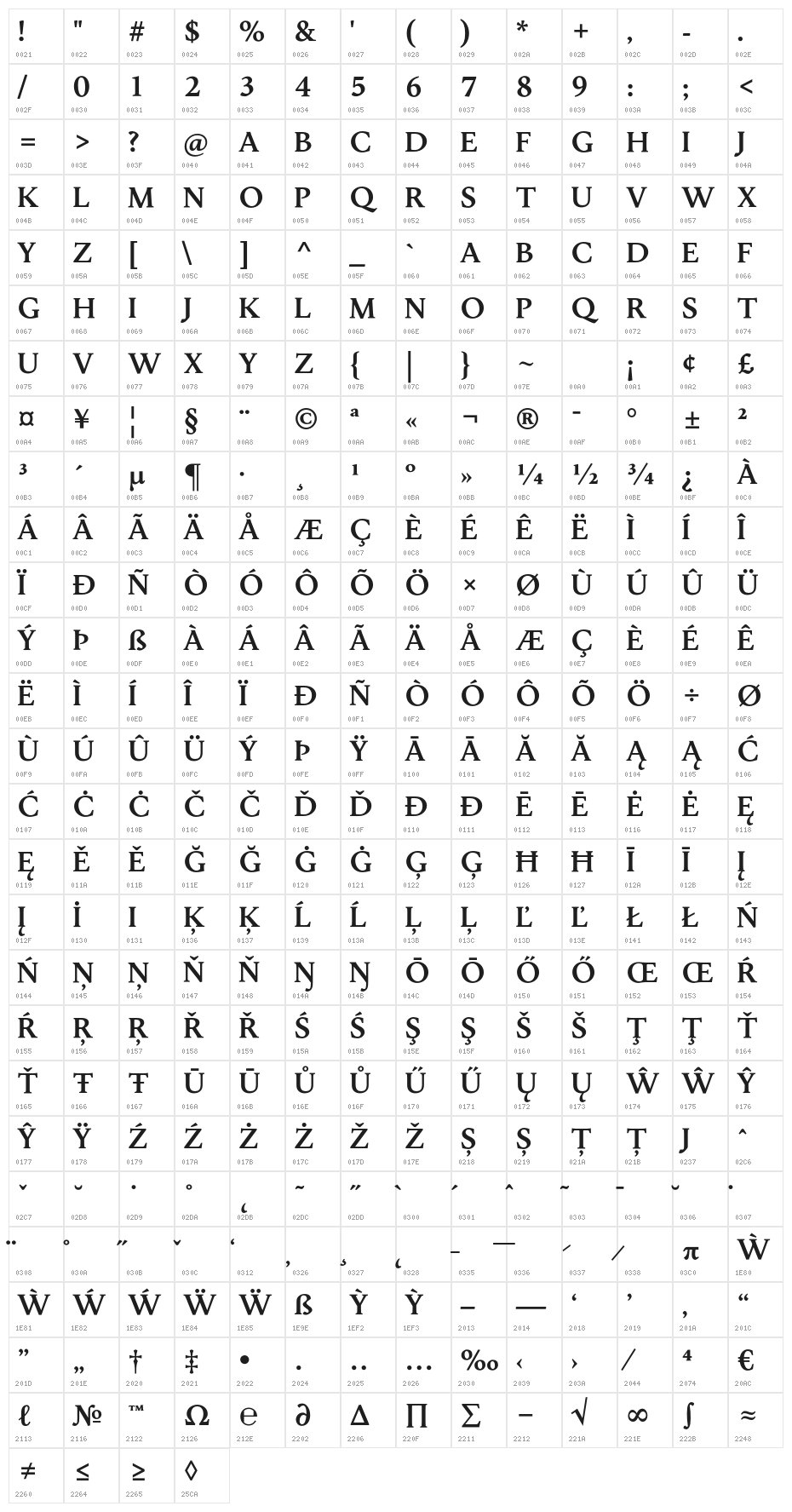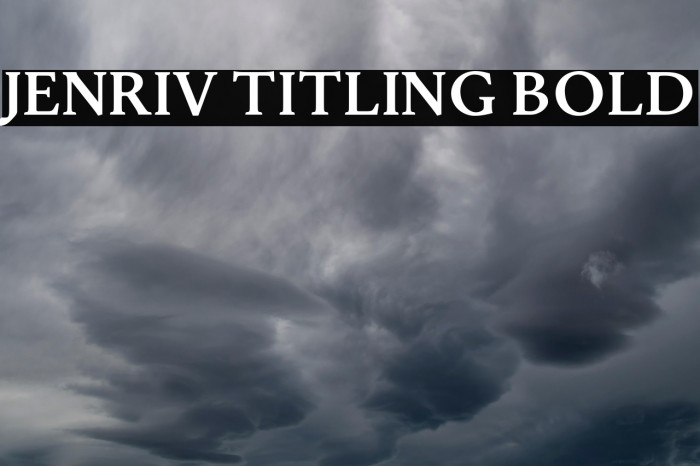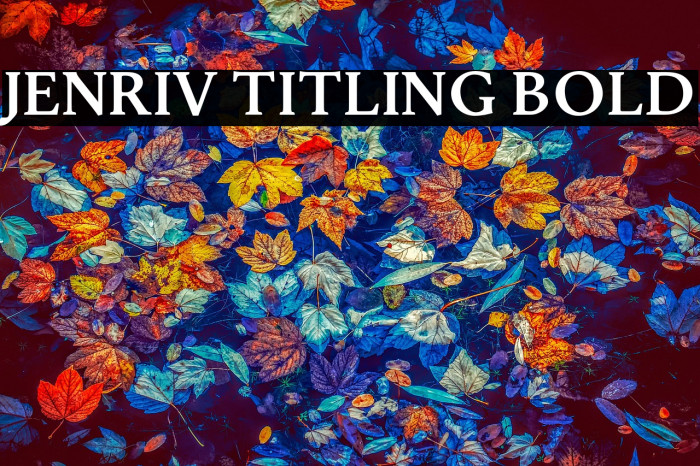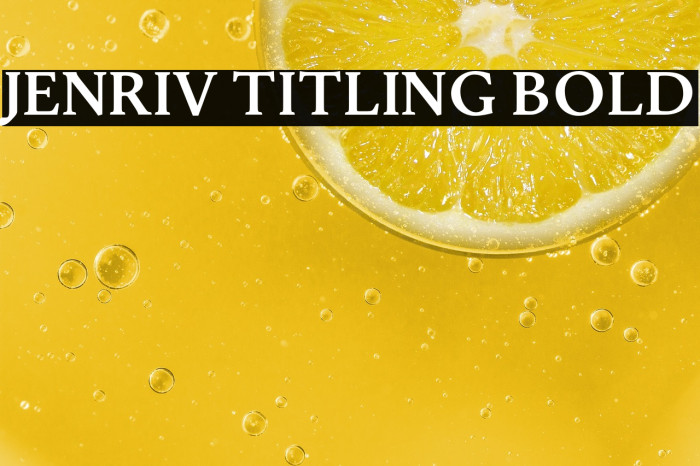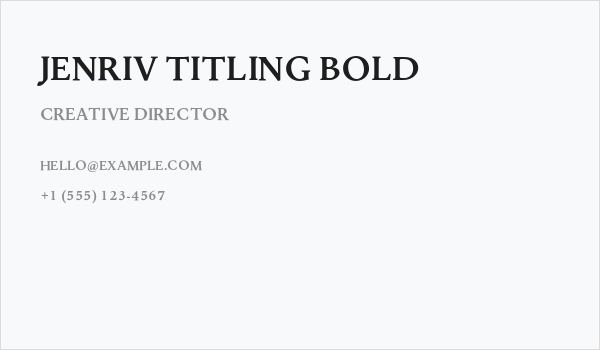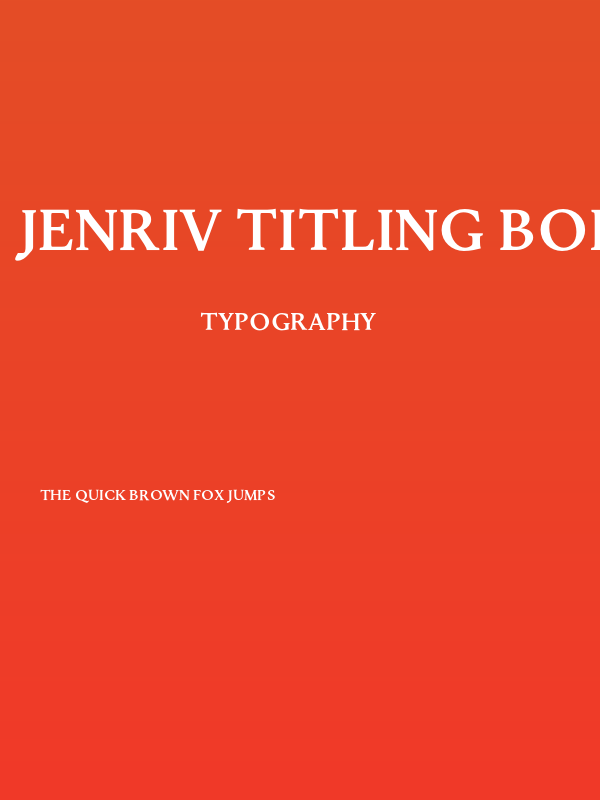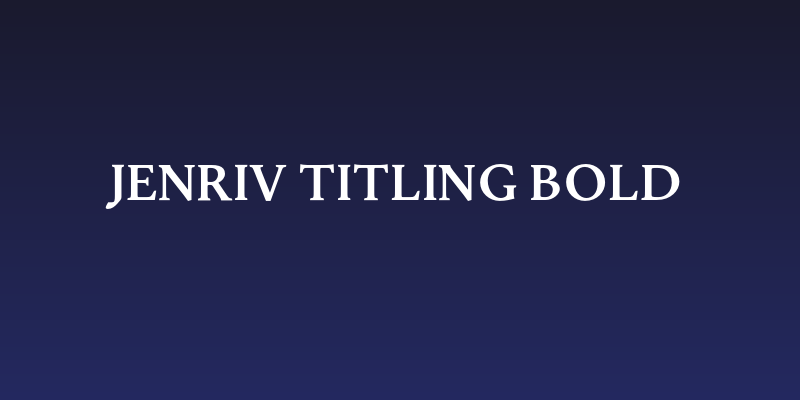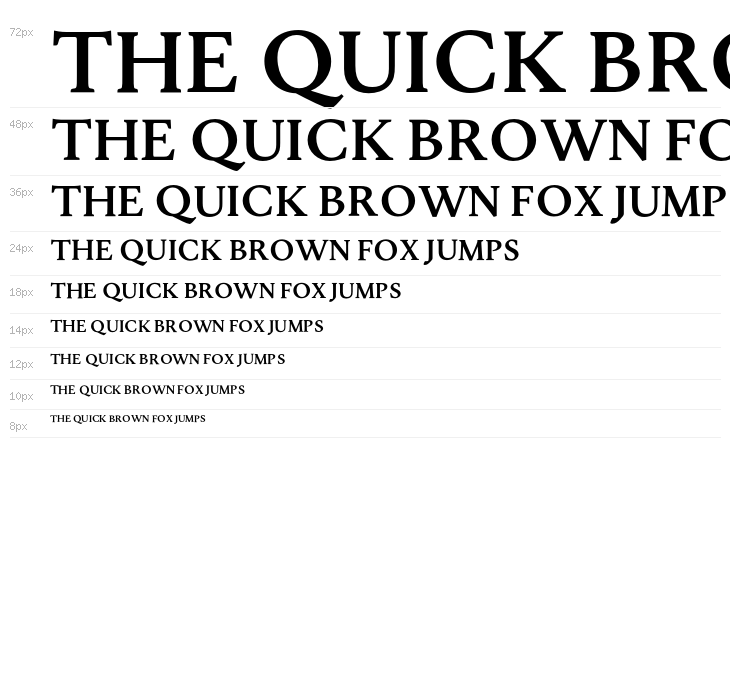
Jenriv Titling Bold Font
Jenriv Titling Bold Description
This font features a classic serif design with strong, bold strokes that convey a sense of authority and tradition. The characters are well-defined with sharp serifs, giving them a formal and elegant appearance. The uppercase letters are particularly striking, with a balanced proportion and a slight contrast in stroke thickness that enhances readability. The numerals are consistent with the overall style, maintaining the bold and traditional aesthetic. Special characters are included, adding versatility for various design needs.
| Use Case | Headlines, Logos, Editorial design |
| Proposed Projects | Ideal for formal documents, book covers, branding, and editorial design where a traditional and authoritative look is desired. |